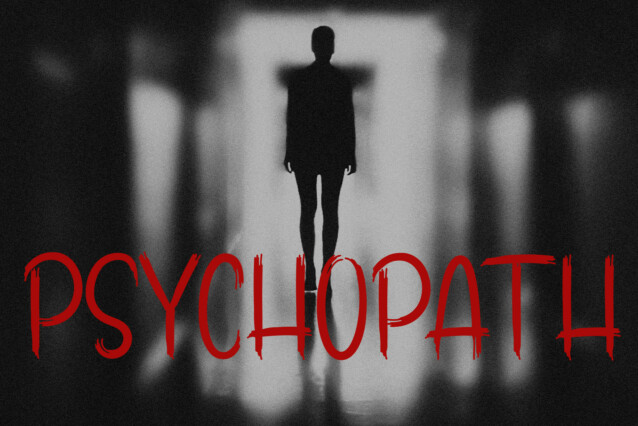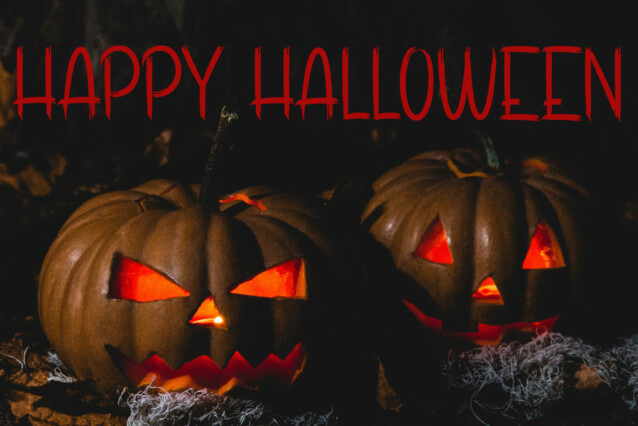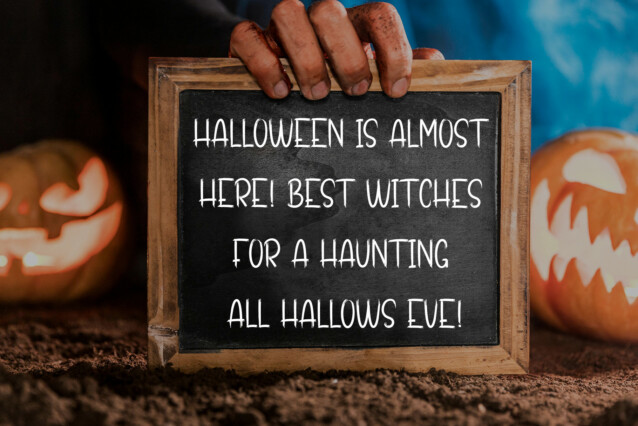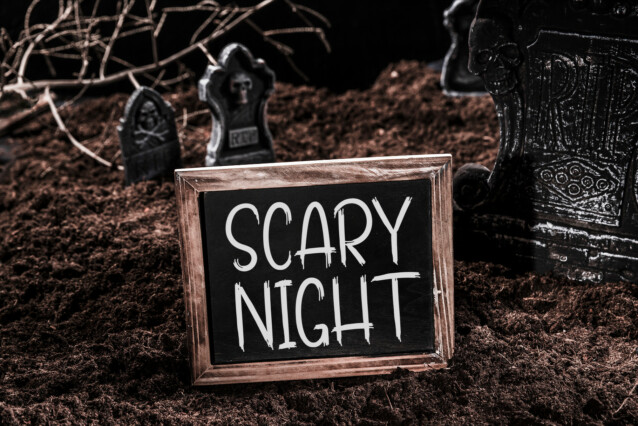
Mistic Terror Script Font is a sweet and friendly handwritten display font. Cute and fun, this font is ideal for writing wedding invitations, cards, or any other design that might need a playful touch!